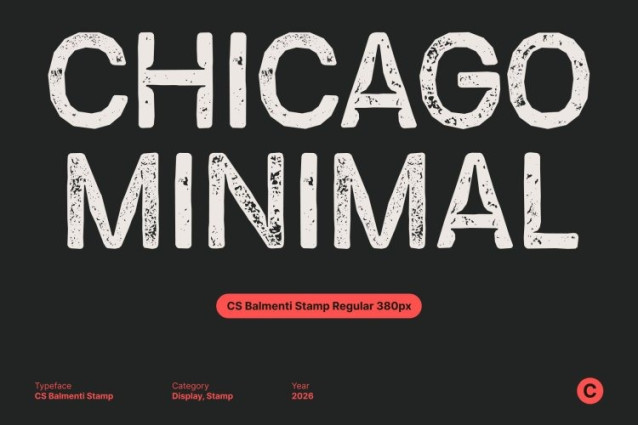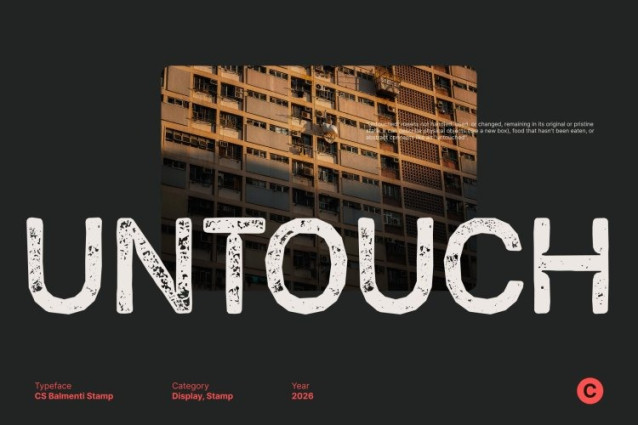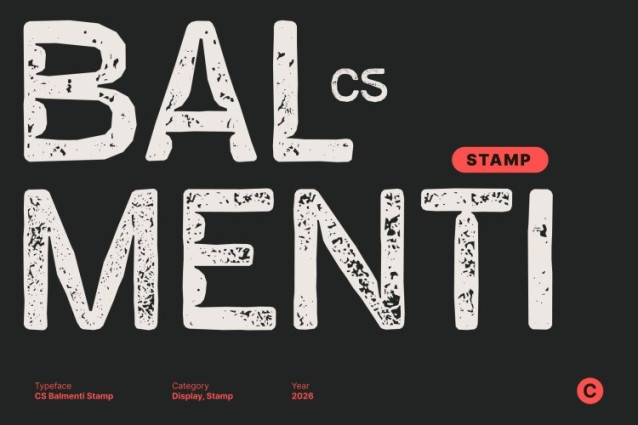
CS Balmenti Stamp Font
CS Balmenti Stamp Font This is a display sans serif font featuring a bold, modern structure defined by sharp and clean lines. Built on a minimalist foundation, it delivers a strong contemporary presence. The addition of a stamp effect introduces subtle texture and ink variation, giving the rigid geometry a slightly worn, industrial character without reducing clarity.
Perfect for Industrial and Urban Designs
With its solid construction and stamped finish, this is ideal for industrial, urban, and modern designs. The textured surface enhances its raw, mechanical feel, making it well suited for branding, signage, packaging, and visuals that demand strength and authenticity.
Strong and Contemporary Appearance with Character
Designed for projects that need to communicate power and confidence, this font performs exceptionally across digital interfaces, print materials, and promotional graphics. The balance between bold structure and stamped imperfection ensures messages stand out with impact while feeling grounded and tactile.
Versatile Application Across Modern Layouts
Despite its industrial edge, this font remains highly versatile. Whether applied to web design, corporate branding, editorial layouts, or creative posters, it maintains excellent readability and sharpness while delivering a modern look enriched with textured depth and visual character.